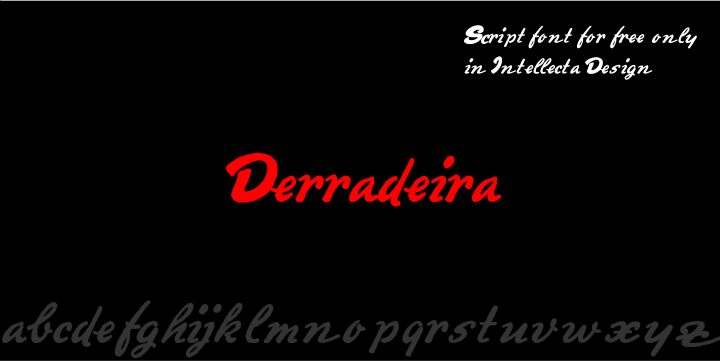
Derradeira by Paulo W. is a free brush script with broad, forceful strokes and sharply tapered turns. Its uneven letter sizes and lively joins create a quick, improvised line, with several forms pushing above and below their neighbors.
Record packaging suits its restless, fast-moving lettering. Gig flyers, band merchandise, and tour posters can draw on the dense silhouette, especially for rock or punk branding that treats the name as part of the product identity rather than a restrained signature.